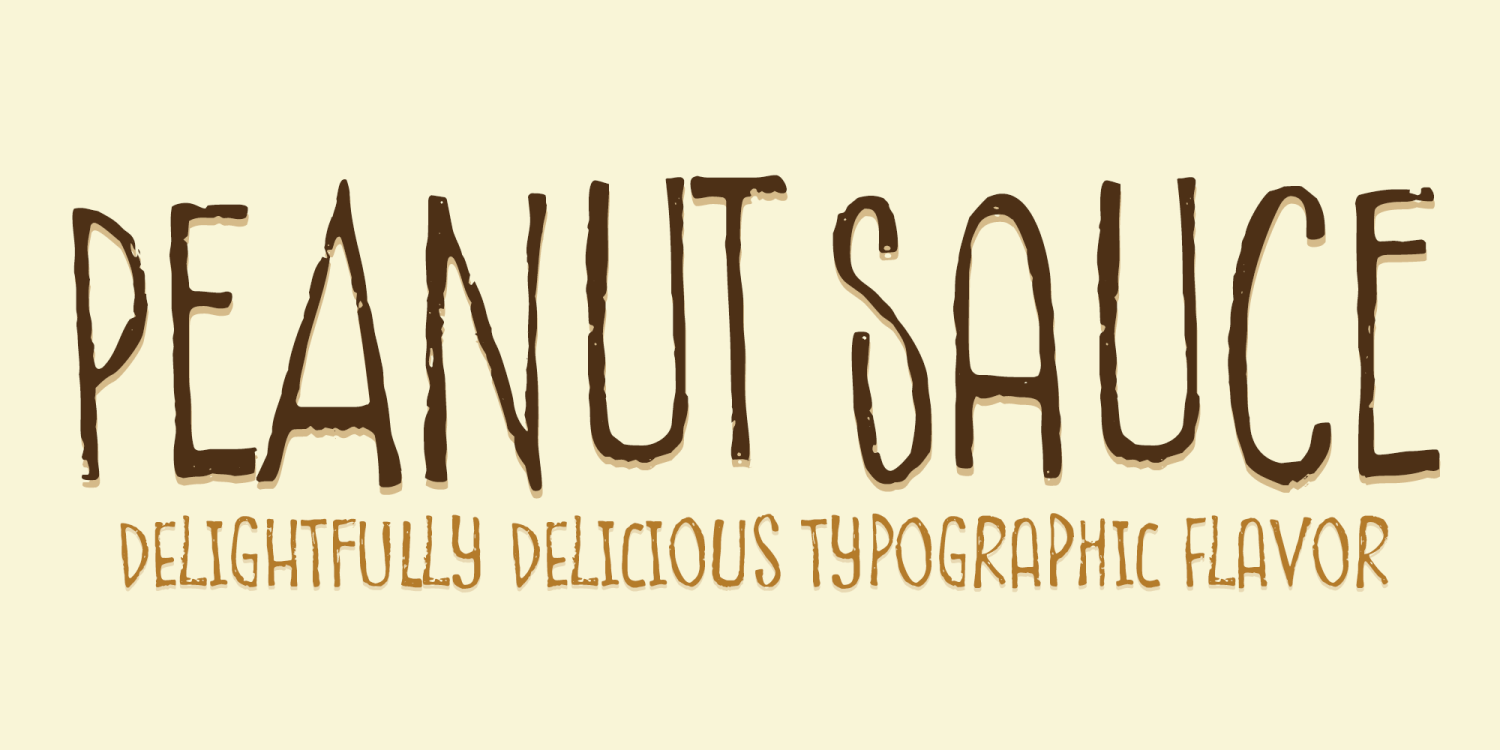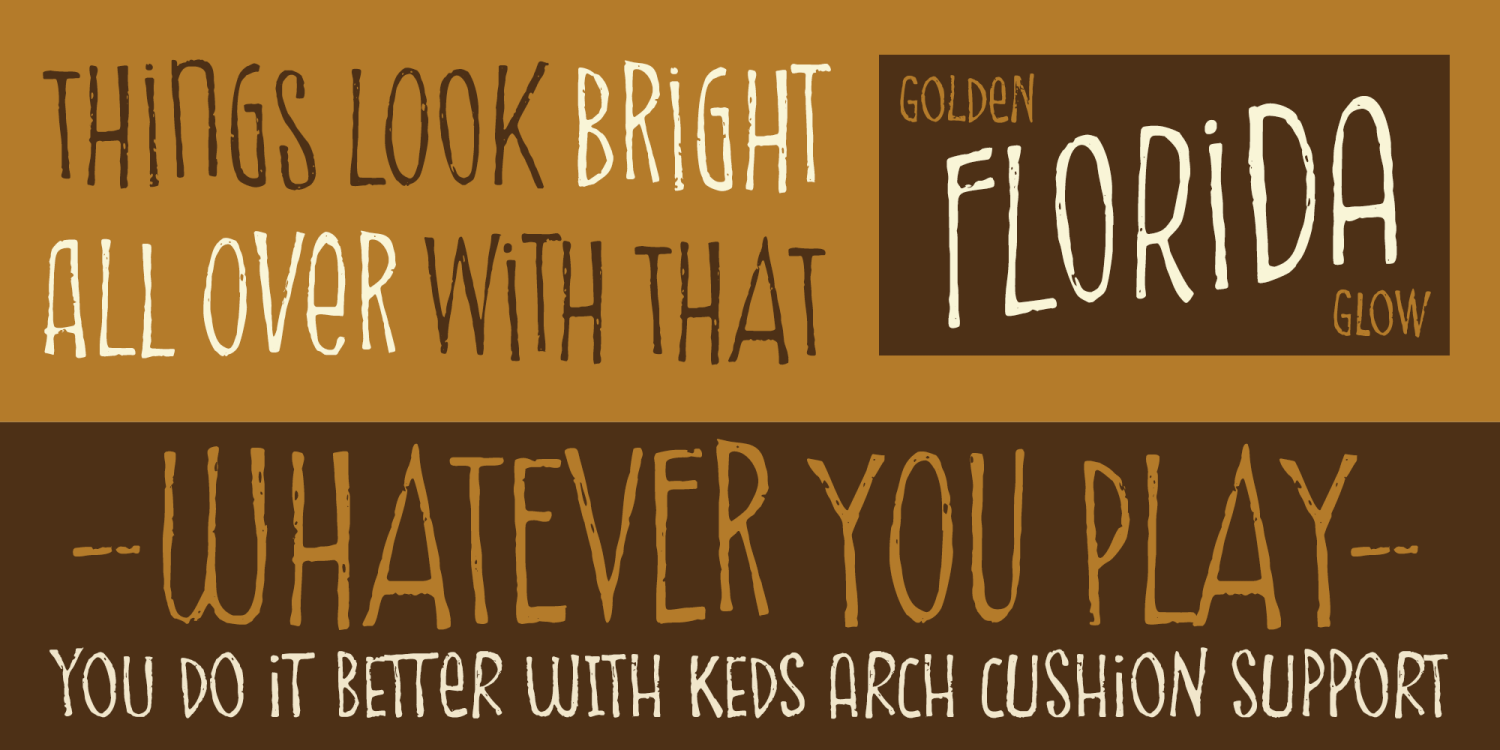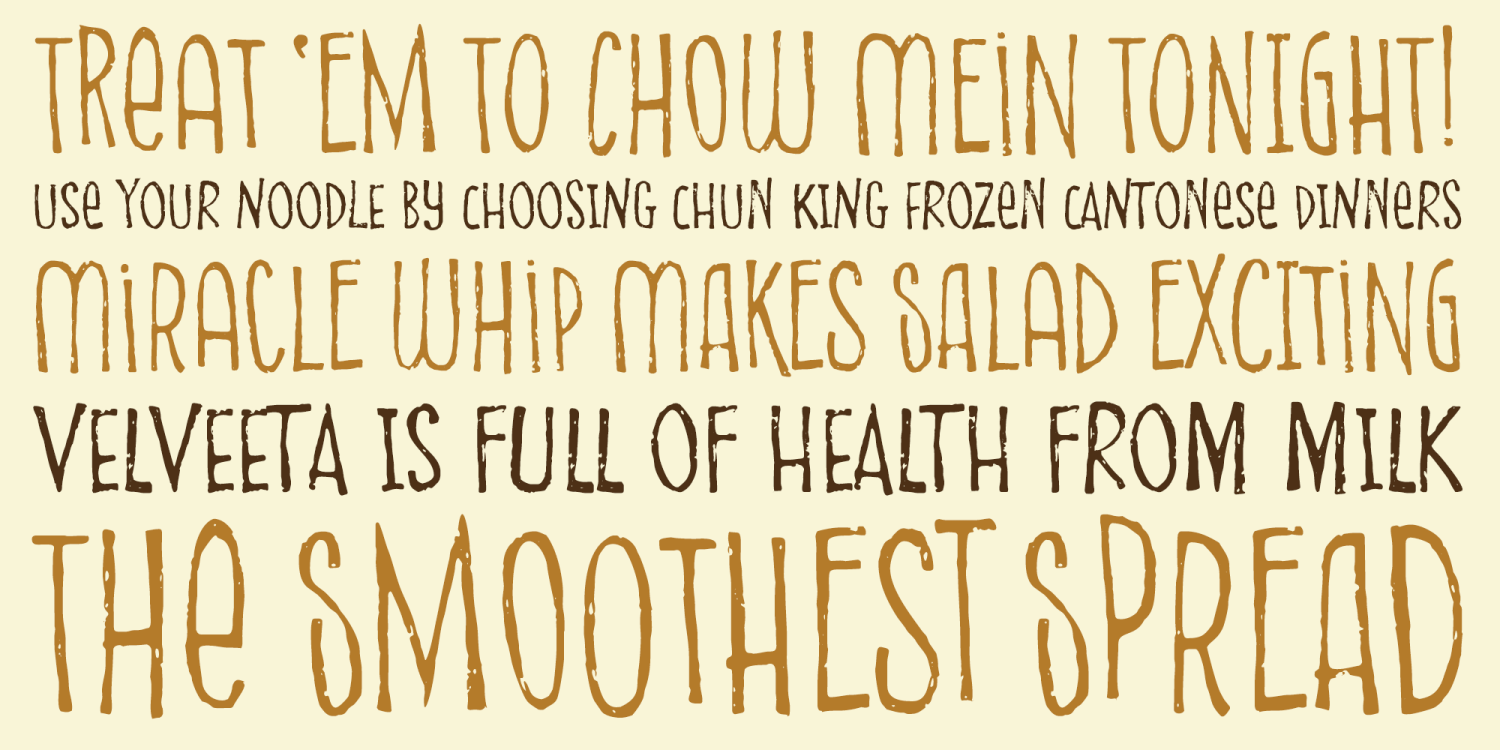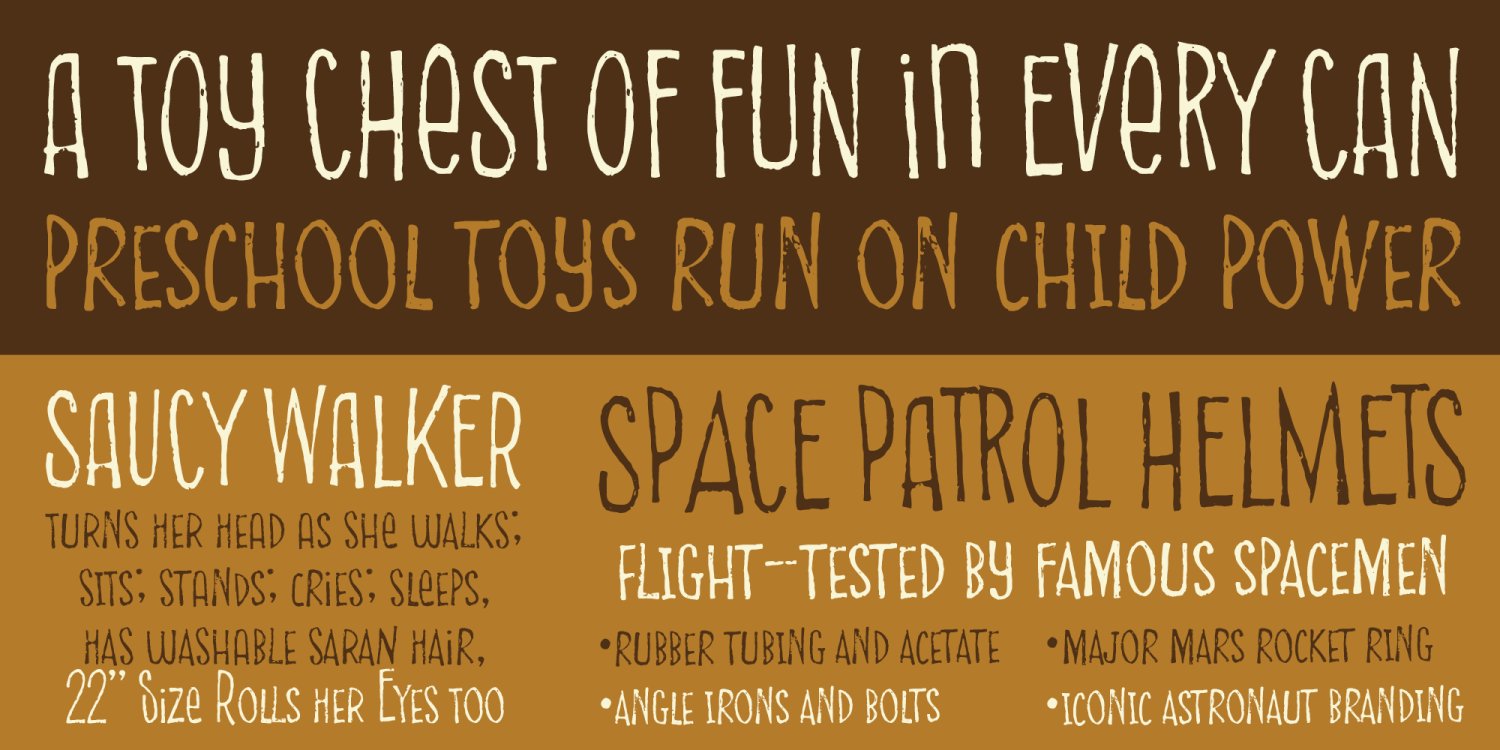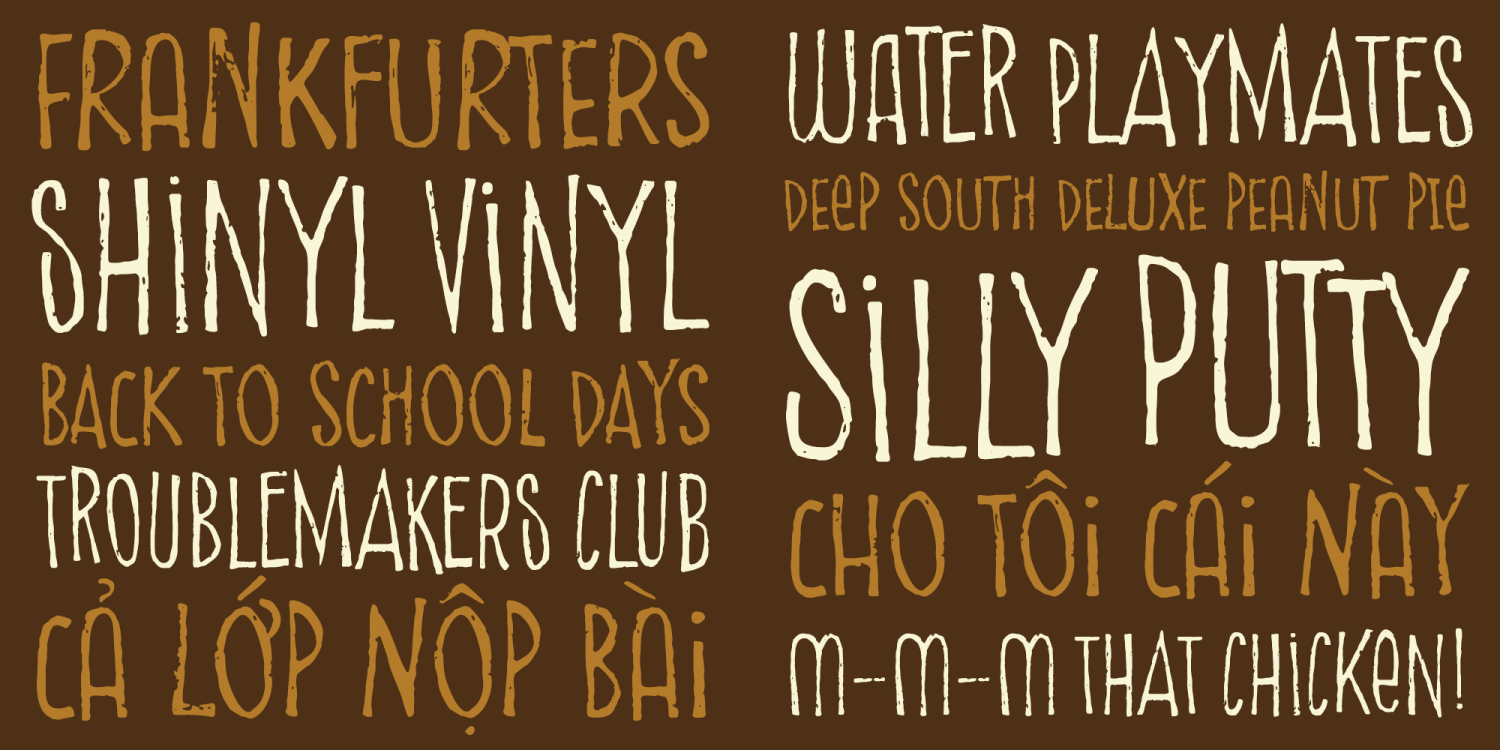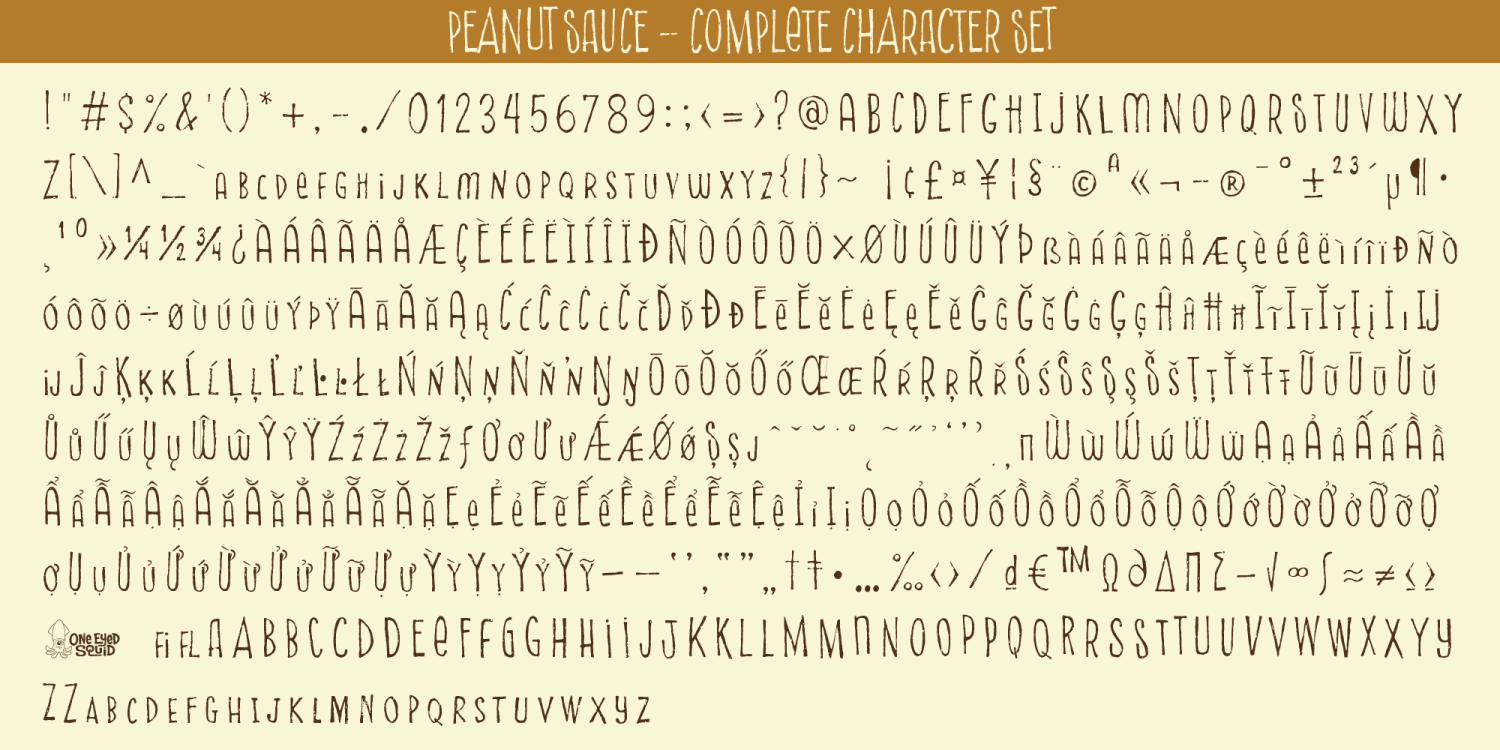
Peanut Sauce
Peanut Sauce is a loose hand-lettered display font with craggy texture, off-kilter charm, and a delightfully quirky personality. Its slightly tipsy rhythm and expressive handmade feel make it a flavorful choice for designs that need warmth, character, and an unconventional decorative voice. Capitals work well together, the short-cap lowercase characters work well together, and mixing the two creates even more playful contrast and typographic personality. Ideal for headlines, posters, branding, packaging, menus, greeting cards, social media graphics, and other creative projects that benefit from a fun, offbeat handmade style. Includes extended Latin language support, including Vietnamese.